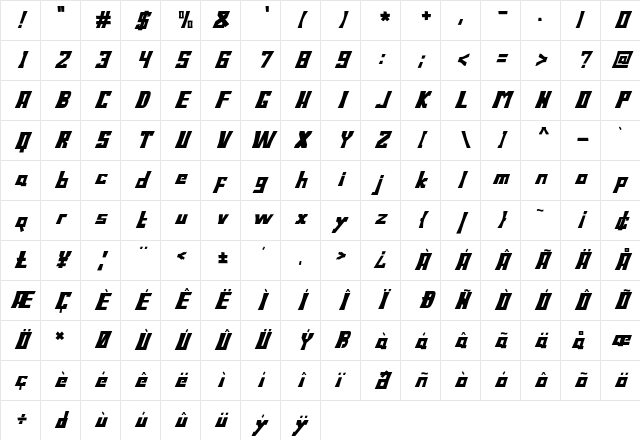
Bodax Bold Oblique Bold
Design Context for Bodax Bold Oblique
Bodax Bold Oblique is a composed and adaptable typeface that performs quietly and consistently across a wide range of design contexts. The slanted form adds forward momentum and visual energy. Its bold stroke weight gives it real presence on the page.
Pro Tip: Use Bodax Bold Oblique for emphasis, pull quotes, and subheadings where its slanted energy can add rhythm to the layout.